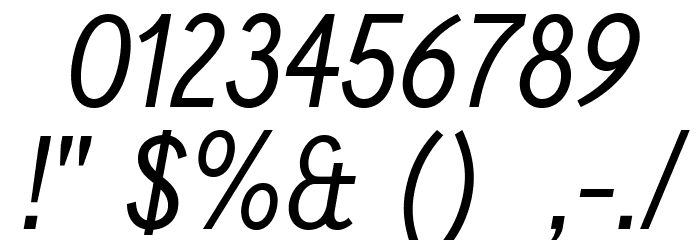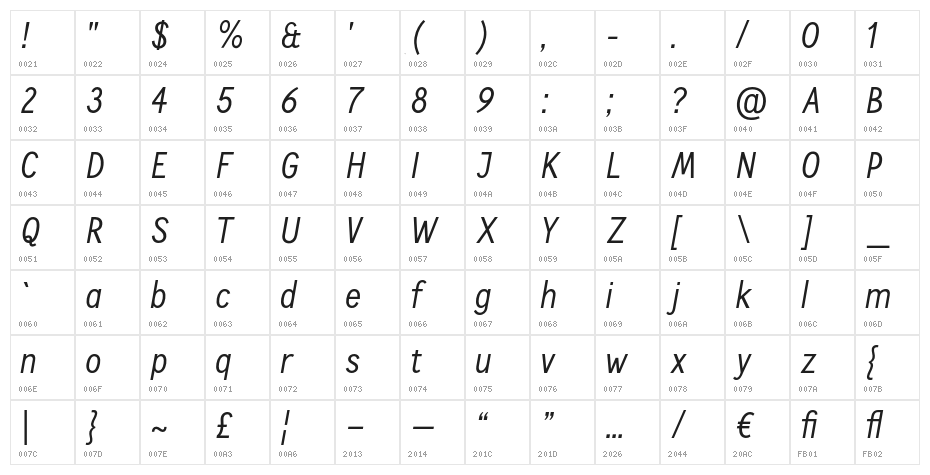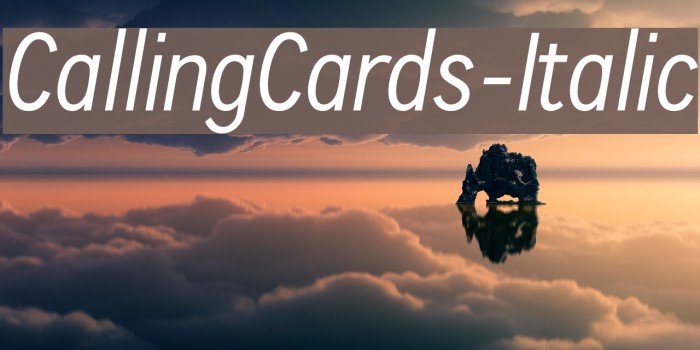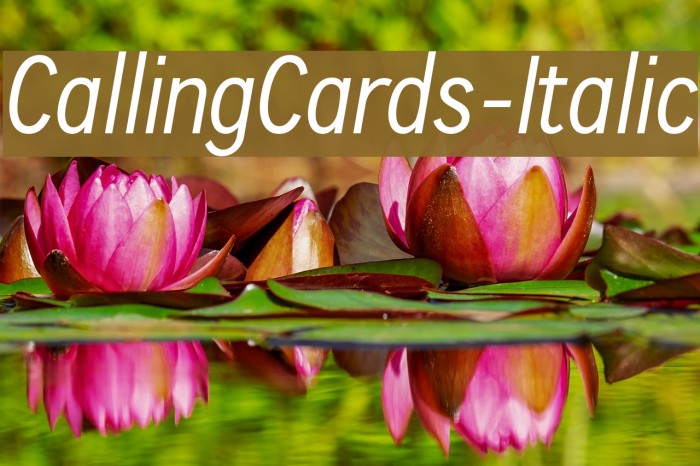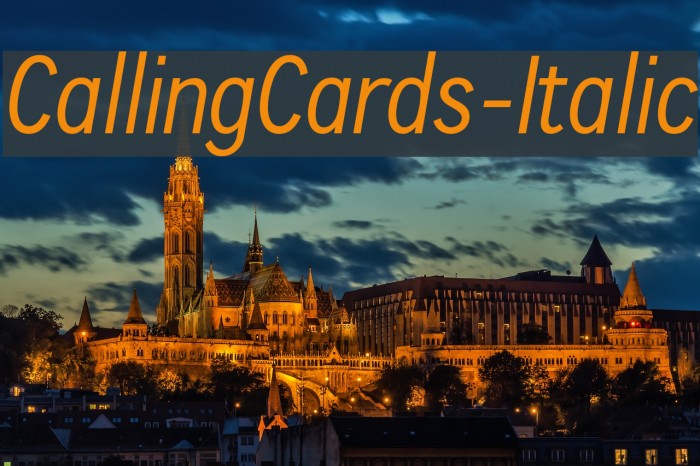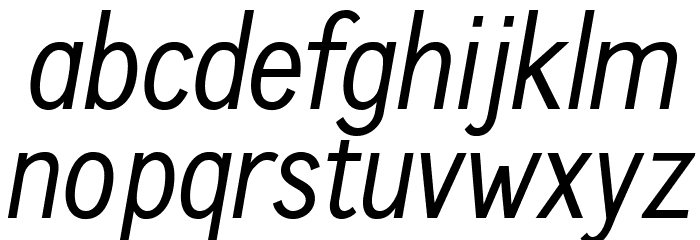
CallingCards-Italic Font
CallingCards-Italic Description
This font exhibits a sleek and modern aesthetic with a slight slant, giving it an italicized appearance. The characters are clean and well-defined, with smooth curves and a consistent stroke width that maintains readability. The uppercase letters are tall and commanding, while the lowercase letters are proportionate and balanced. The numerals are straightforward and align well with the overall style. Special characters are distinct and integrate seamlessly with the rest of the typeface. This font's design is both professional and versatile, making it suitable for a variety of applications.
| Proposed Projects | Ideal for branding, advertising, and editorial design projects where a modern and professional look is desired. |